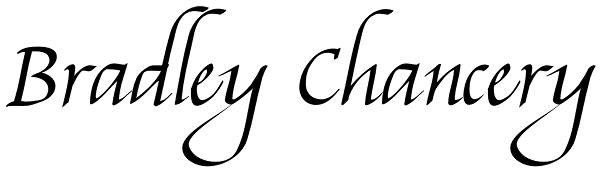
Bradley Chancery
A new font in the Humanistic tradition, for letters, poetry, display graphics - and just to make the everyday more elegant. This family of fonts has four members: the basic plain font has regular and bold weights, and each of those has its swash...